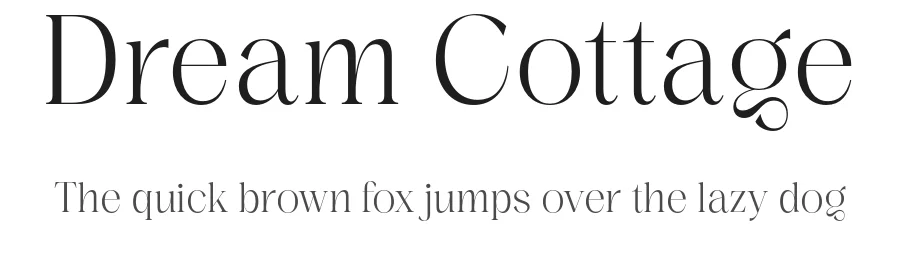
About Rose Velt Font
Rose Velt Font is a versatile serif font that works for both headings and body text. Pair it with a contrasting sans-serif or slab serif font to add visual interest and a clear distinction between titles and body copy.
Rose Velt Font